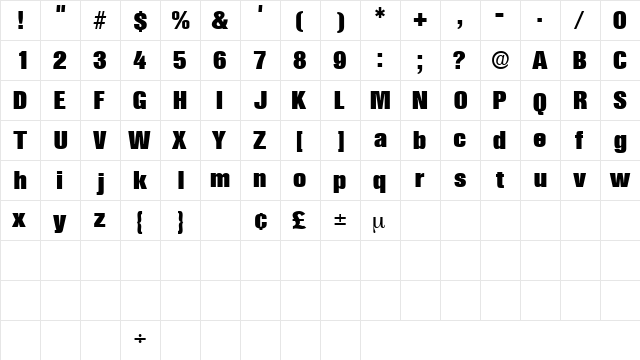
ChoqueDisplayCondSSK Bold
Design Context for ChoqueDisplayCondSSK Typeface
ChoqueDisplayCondSSK is built around its visual character rather than neutral utility — its distinctive forms are designed to make an impression at display sizes. Its bold stroke weight gives it real presence on the page.
Font Pairing: Pair with a clean neutral sans-serif for body copy to let ChoqueDisplayCondSSK's character lead without overwhelming the composition.
Pro Tip: Use ChoqueDisplayCondSSK exclusively at display sizes — it was designed to be seen, not read at length. Let a neutral companion handle body copy.